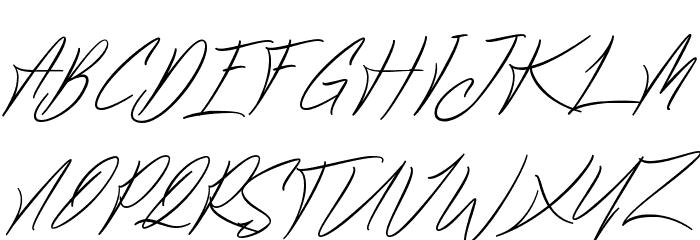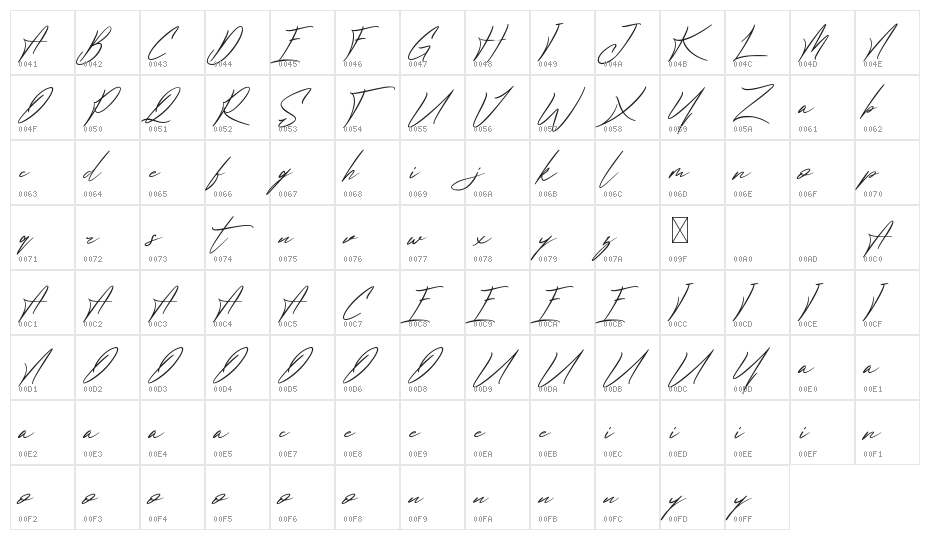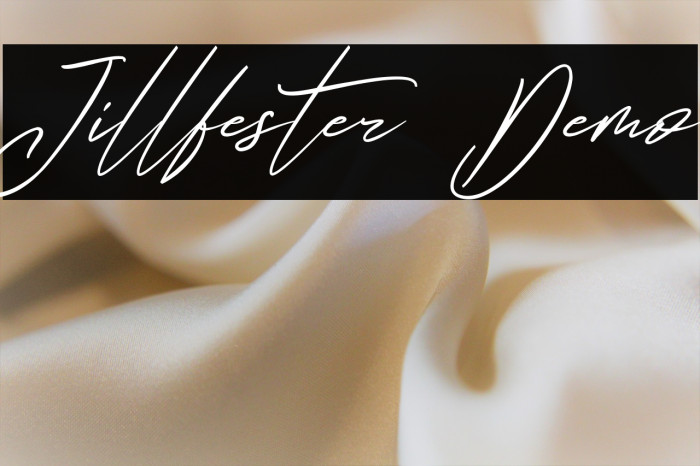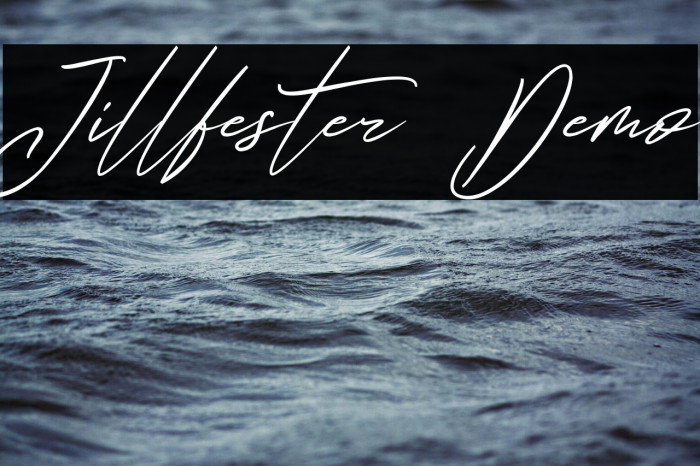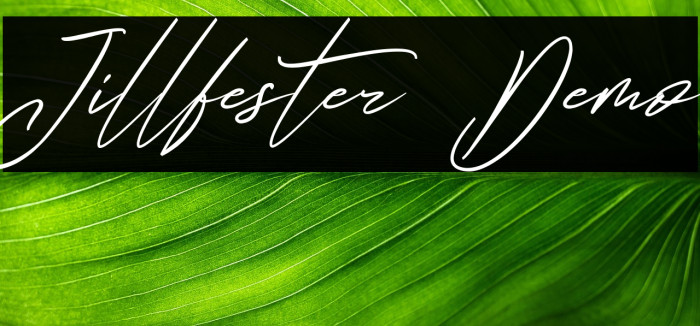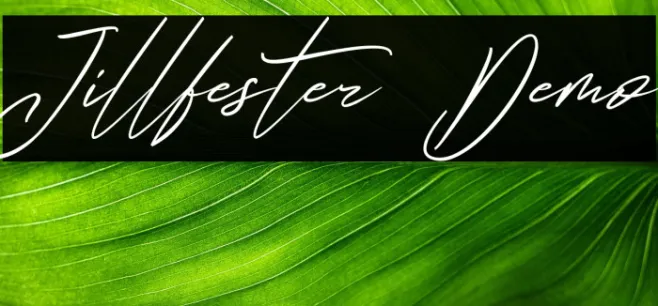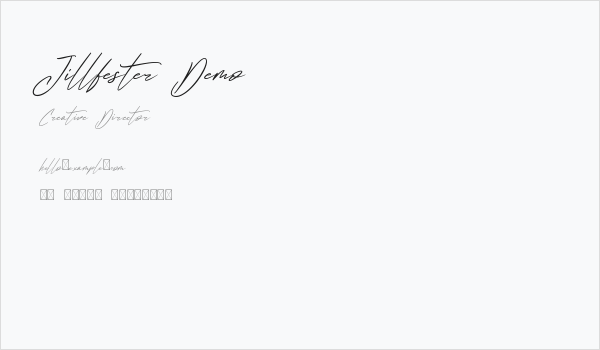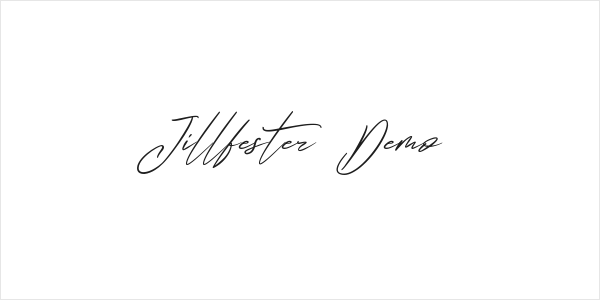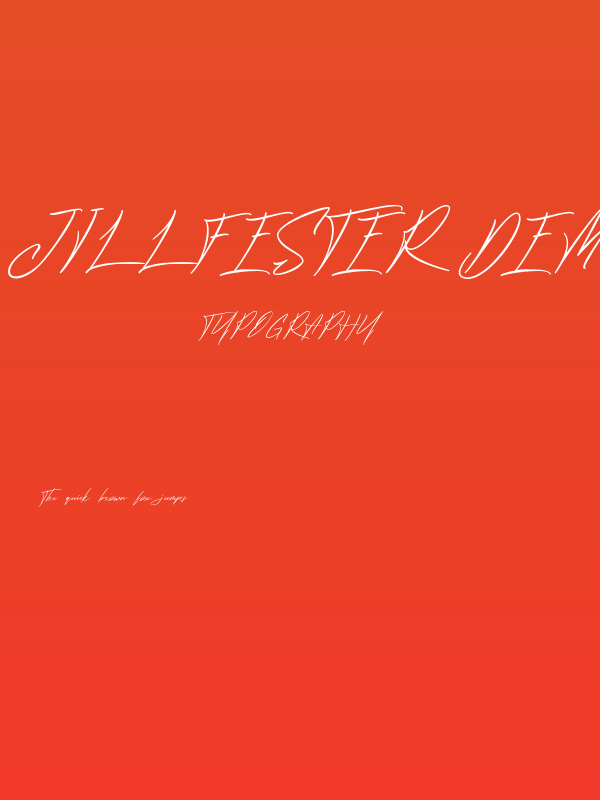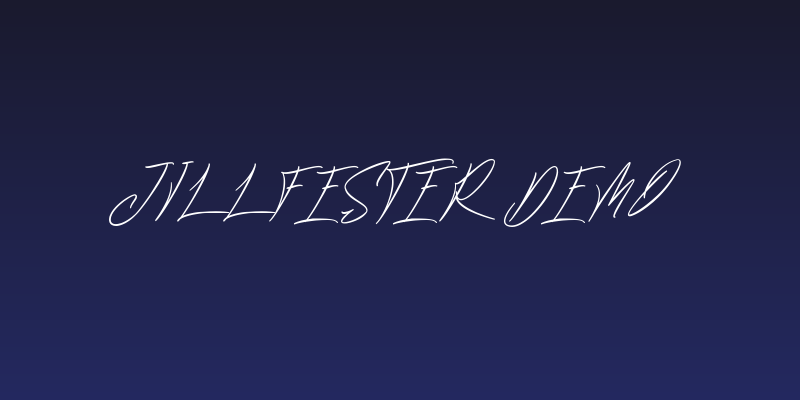
Jillfester Demo Font
Jillfester Demo Description
This font features an elegant, flowing script style that mimics the fluidity of natural handwriting. The characters are connected, creating a seamless and continuous look that is both sophisticated and artistic. The uppercase letters are tall and slightly slanted, while the lowercase letters maintain a consistent flow with graceful loops and curves. The font's thin strokes and high contrast between thick and thin lines add to its refined appearance. It exudes a sense of personal touch and creativity, making it ideal for projects that require a handwritten aesthetic.
| Overall Style | Elegant, Artistic |
| Proposed Projects | Ideal for wedding invitations, personal branding, greeting cards, and artistic projects that require a personal touch. |